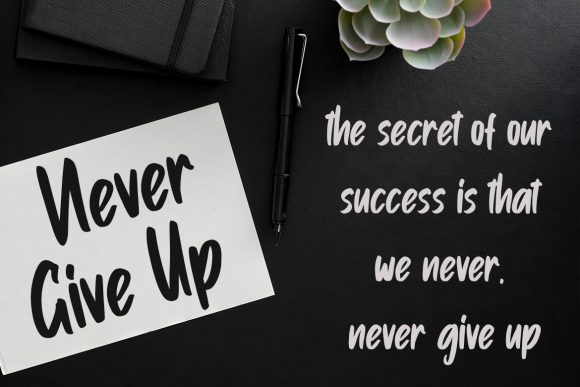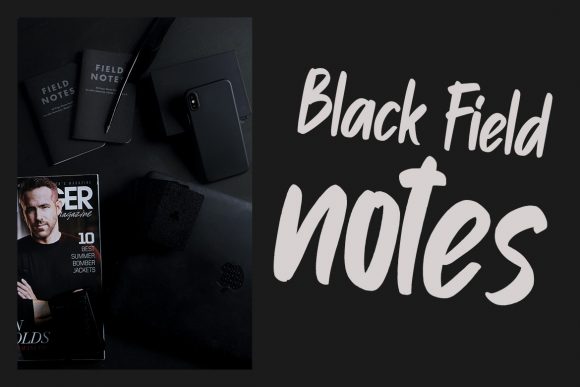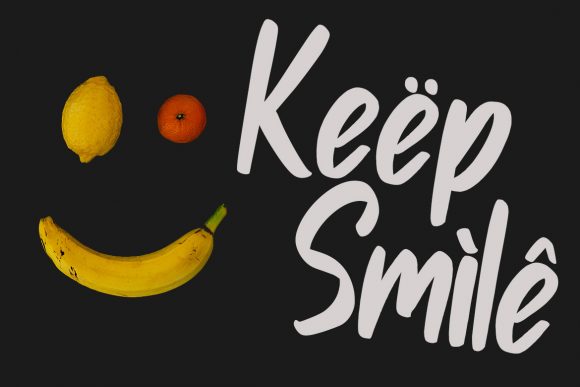
Introduction to Onether Font
Have you ever stared at a blank sheet of paper, waiting for inspiration to strike? It’s that moment when creativity is just a spark away – and with the right design resource, the possibilities become endless. For those seeking a unique touch, the Onether Font is about to become your new best friend.
This elegant and thick lettered handwritten font is a game-changer for any creative project, offering a sweet and delicate flair that’s perfect for letterheads, titles, and stationery. With its high-quality design, the Onether Font is an invaluable resource for designers looking to elevate their work. Plus, with a transparent background, you can easily integrate it into your favorite design software.
Key Features of Onether Font
- Unique and modern design, perfect for designers looking to add a touch of sophistication and elegance to their creative projects.
Honest Review: Onether Font
I recently had the chance to work with the Onether Font and I have to say it’s been a game-changer for my creative projects. ✨ The font is incredibly versatile and has a unique style that sets it apart from other design resources.
One of the things I love about Onether Font is its high quality. The font is crisp and clean, making it perfect for projects where a transparent background is required. Plus, it’s a free download, which is always a bonus when it comes to design resources.
Here are some of the things that work well with the Onether Font:
- Unique style
- Perfect for transparent backgrounds
- Not as comprehensive as some other design resources
Overall, I’m really impressed with the Onether Font and would highly recommend it to anyone working on a creative project that requires a high-quality, unique font. Just be aware of the limitations and make sure it fits your needs before committing to it.
Tips for Getting the Most Out of Onether Font
To maximize the effectiveness of Onether Font, use it on a transparent background to create a seamless design. Experiment with different font sizes, colors, and styles to find the perfect combination for your creative project.
Onether Font is ideal for a variety of creative projects, including graphic design, digital art, and print materials. Its high-quality design makes it perfect for use on transparent backgrounds, ensuring a professional and polished finish.